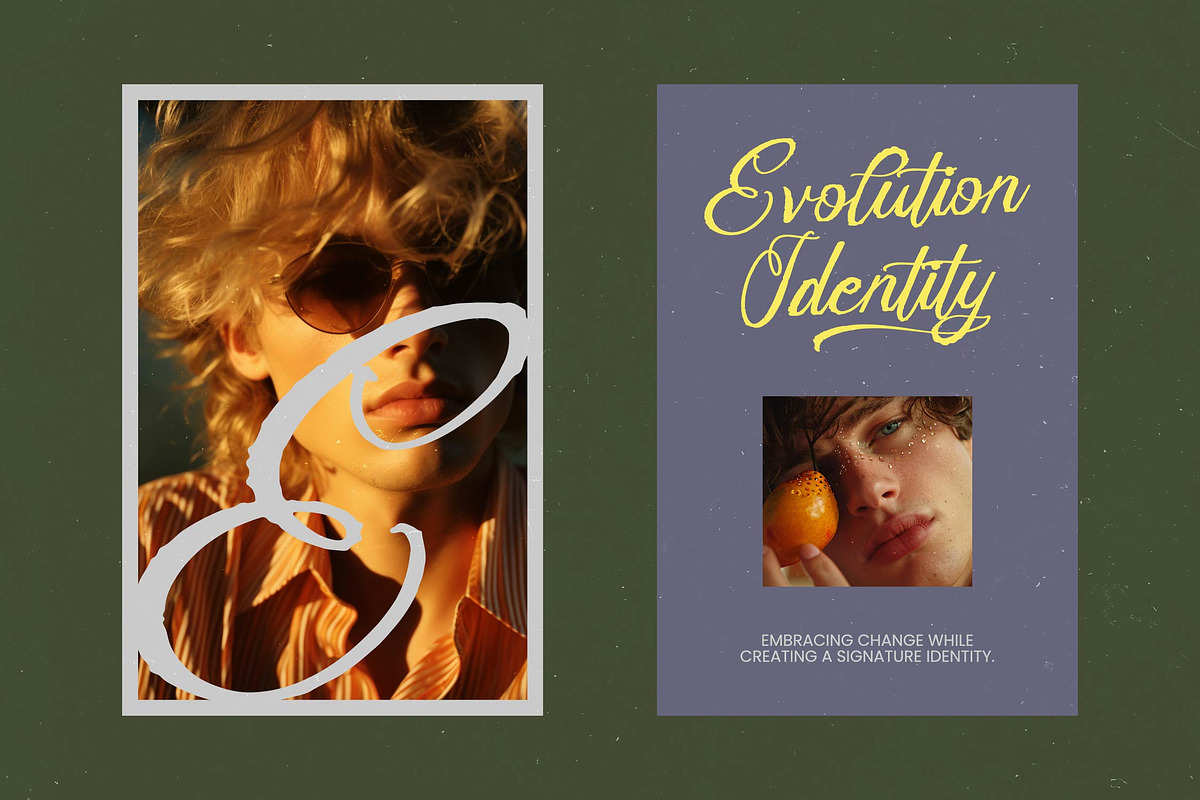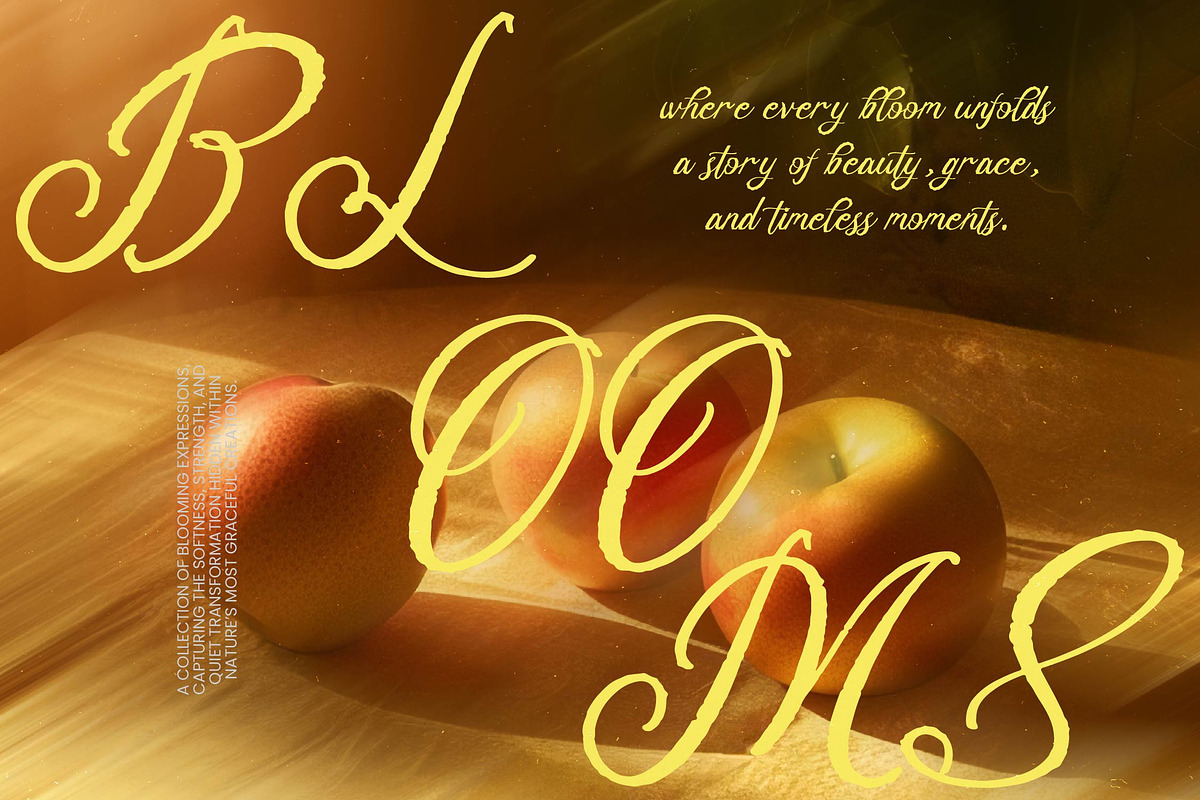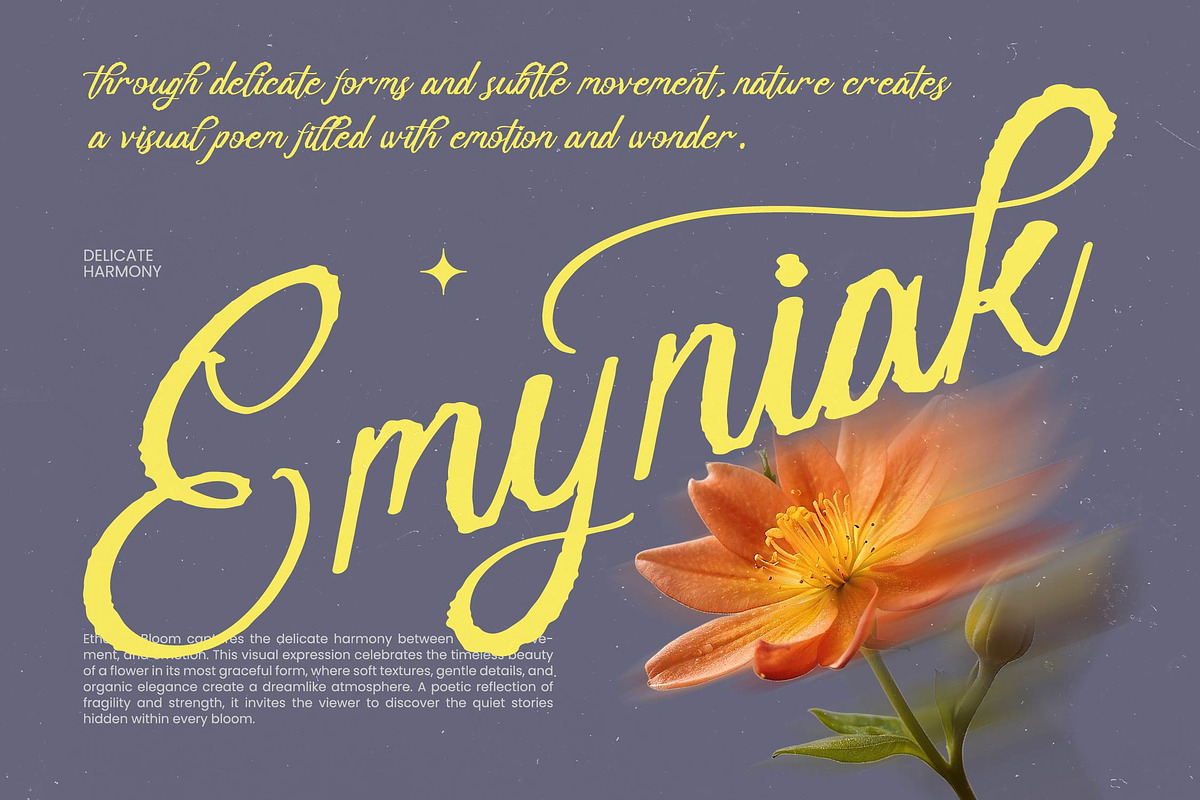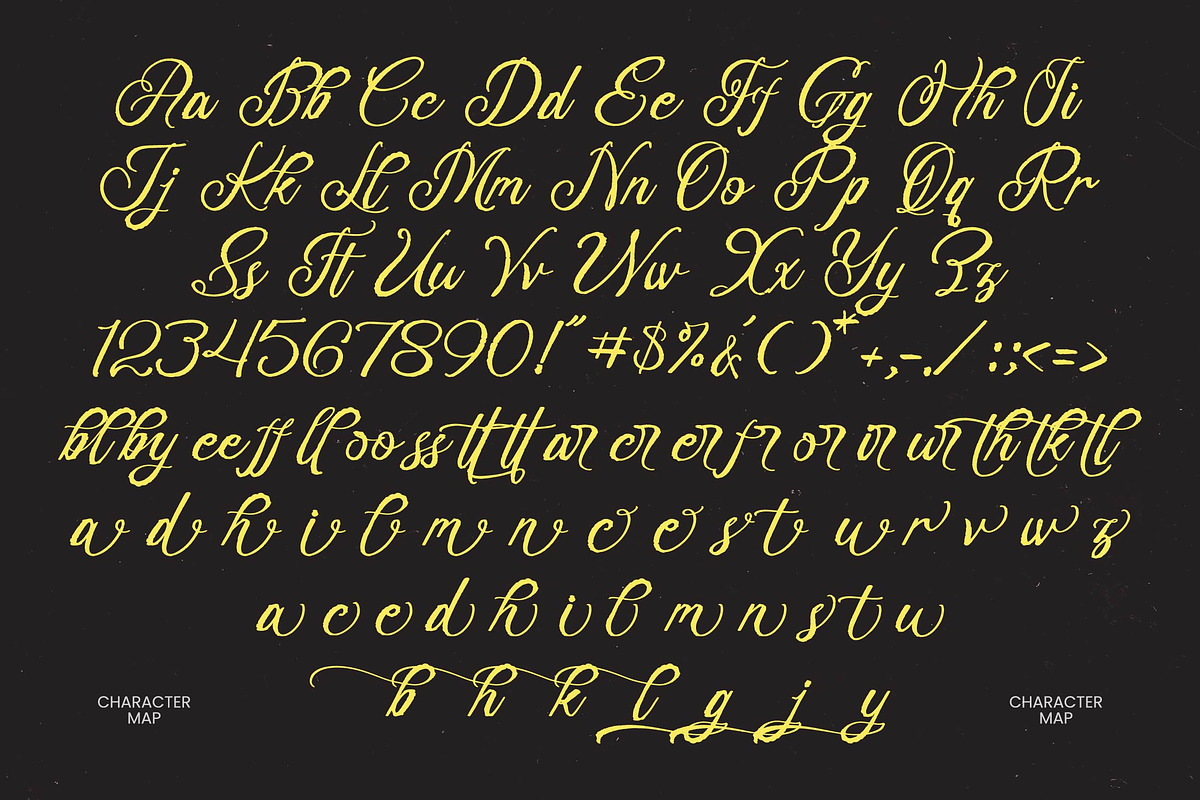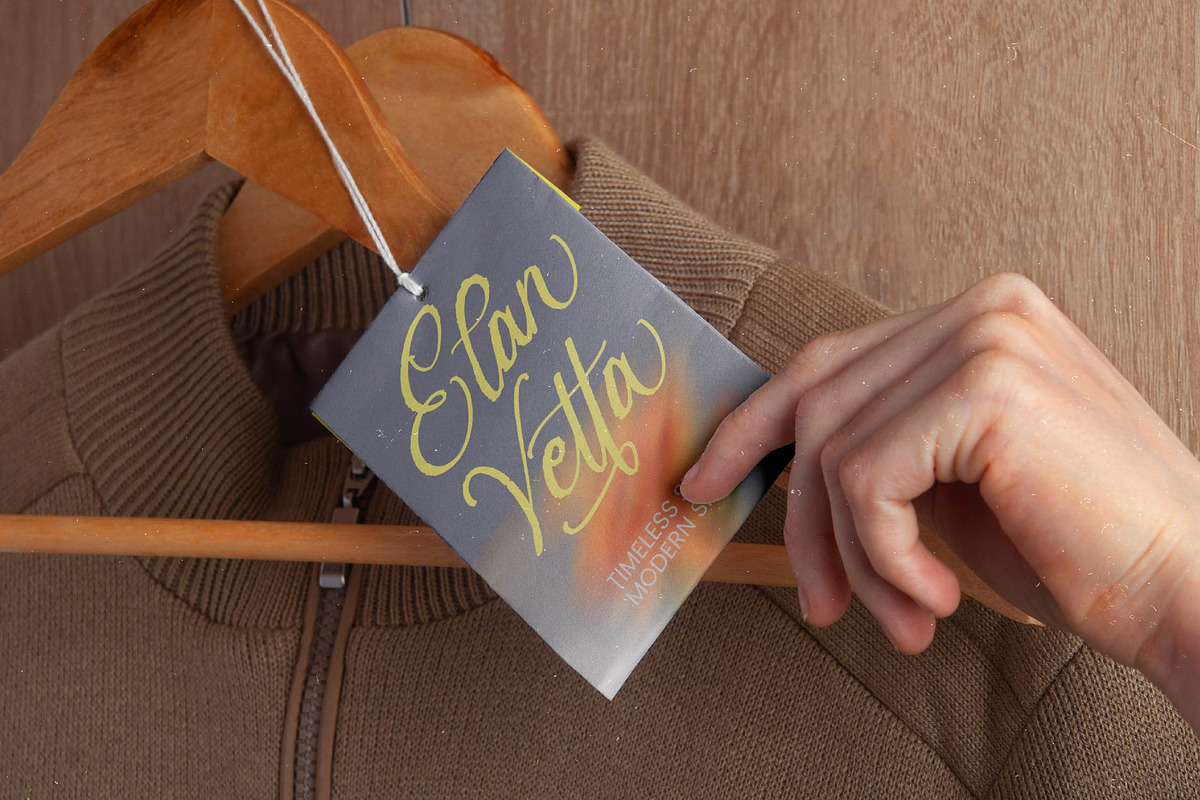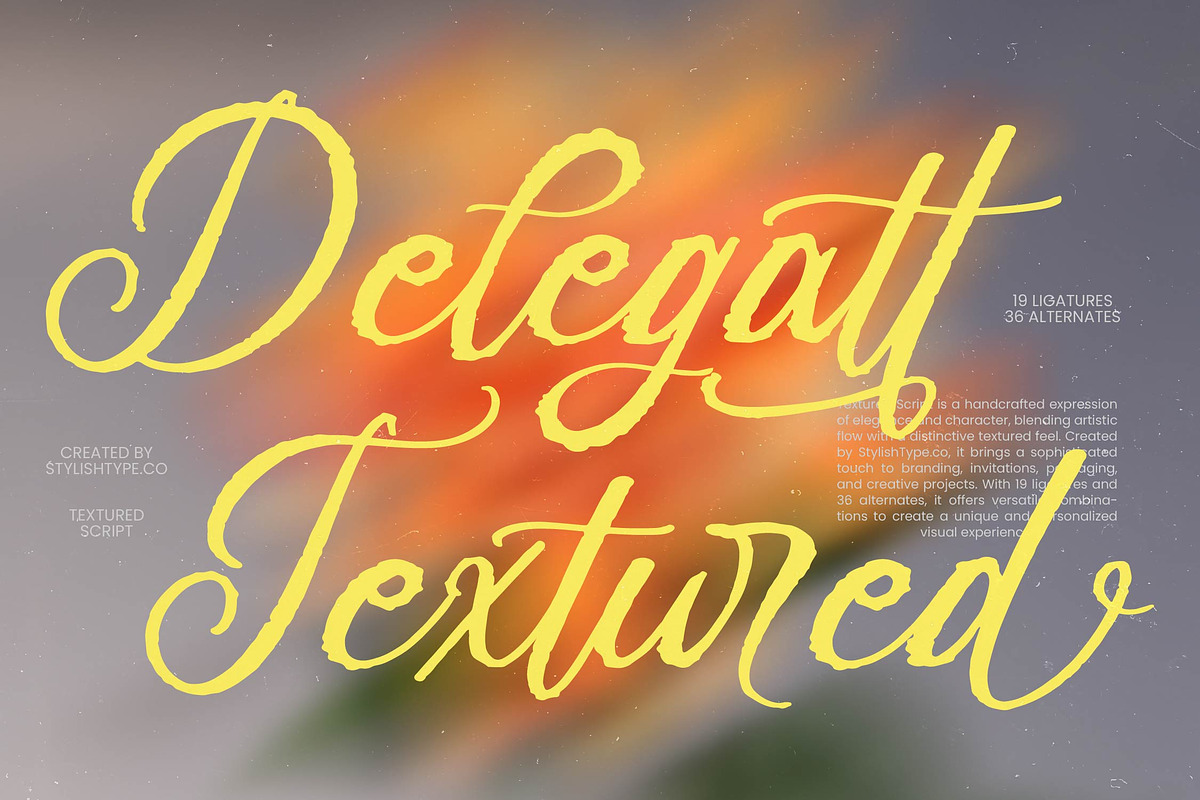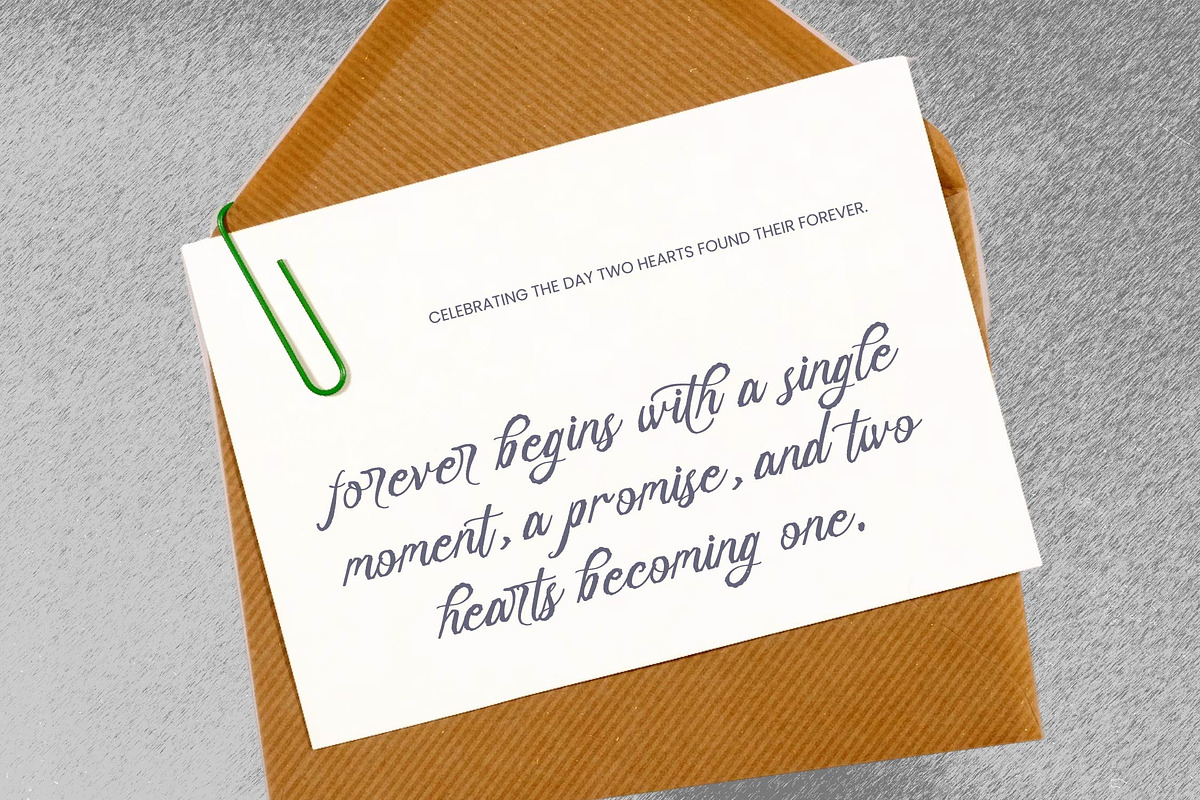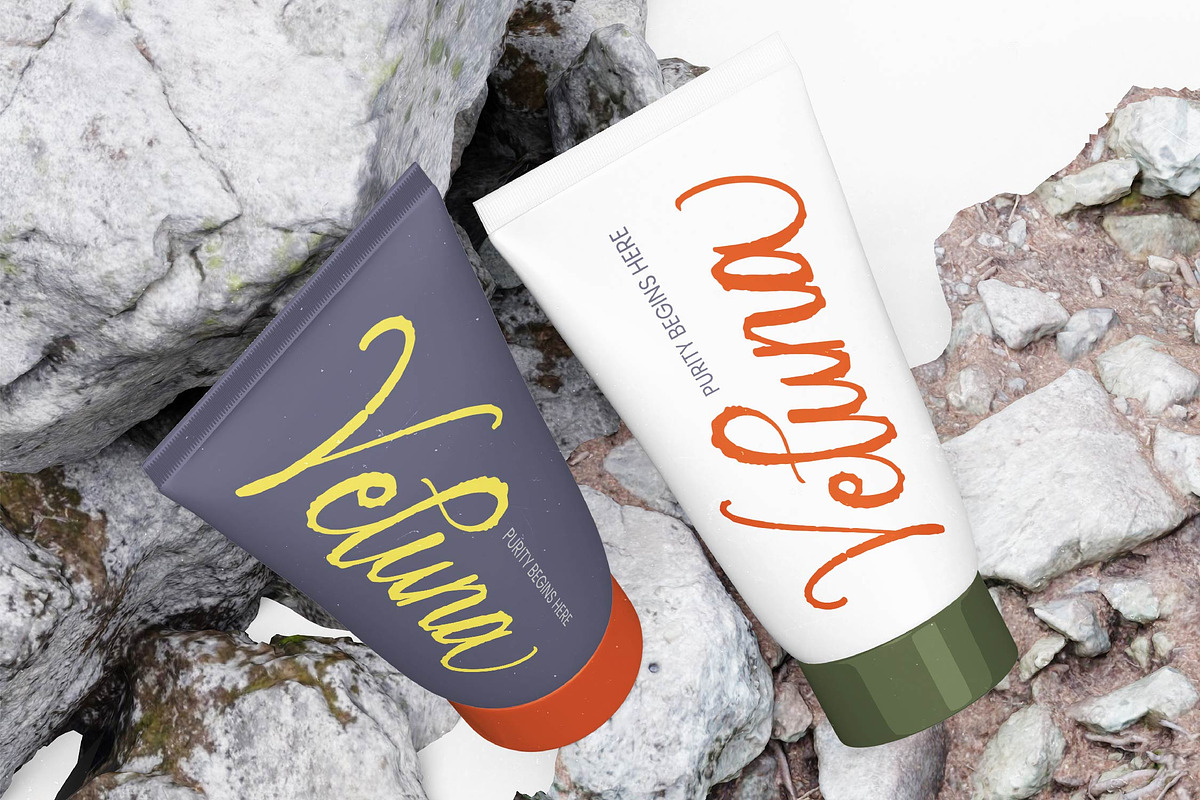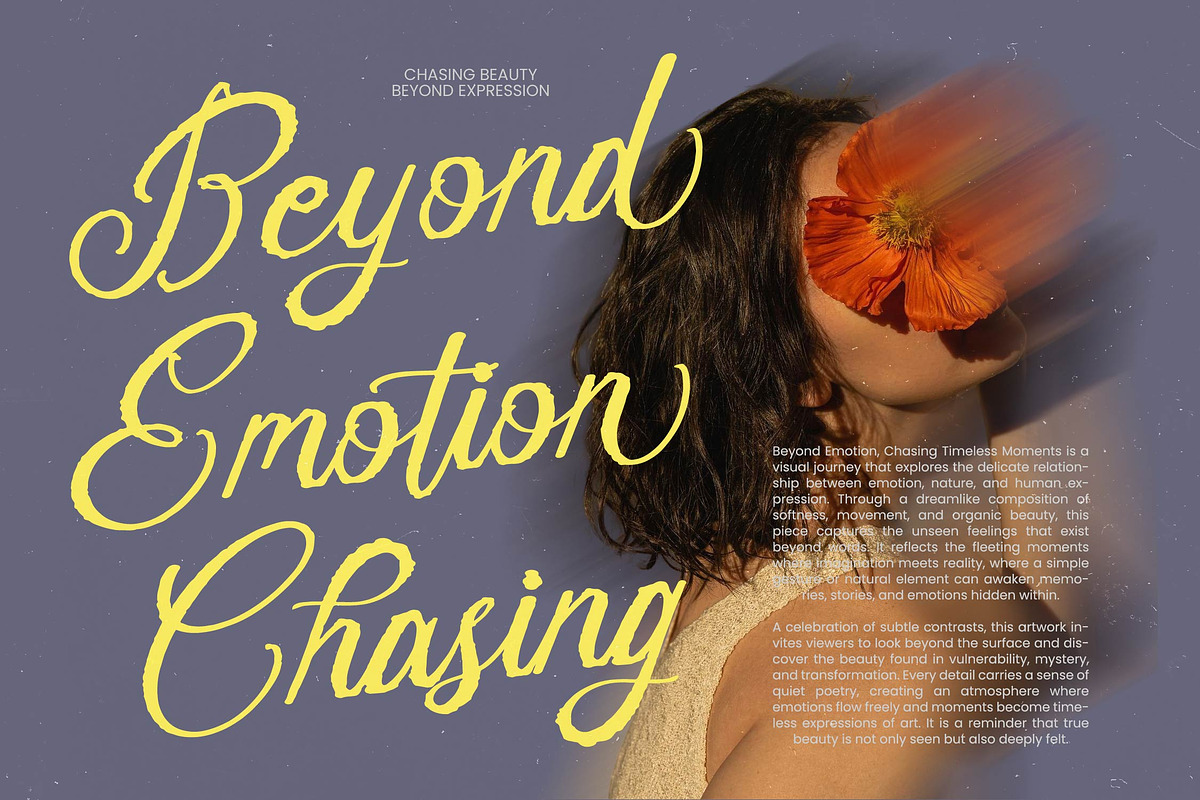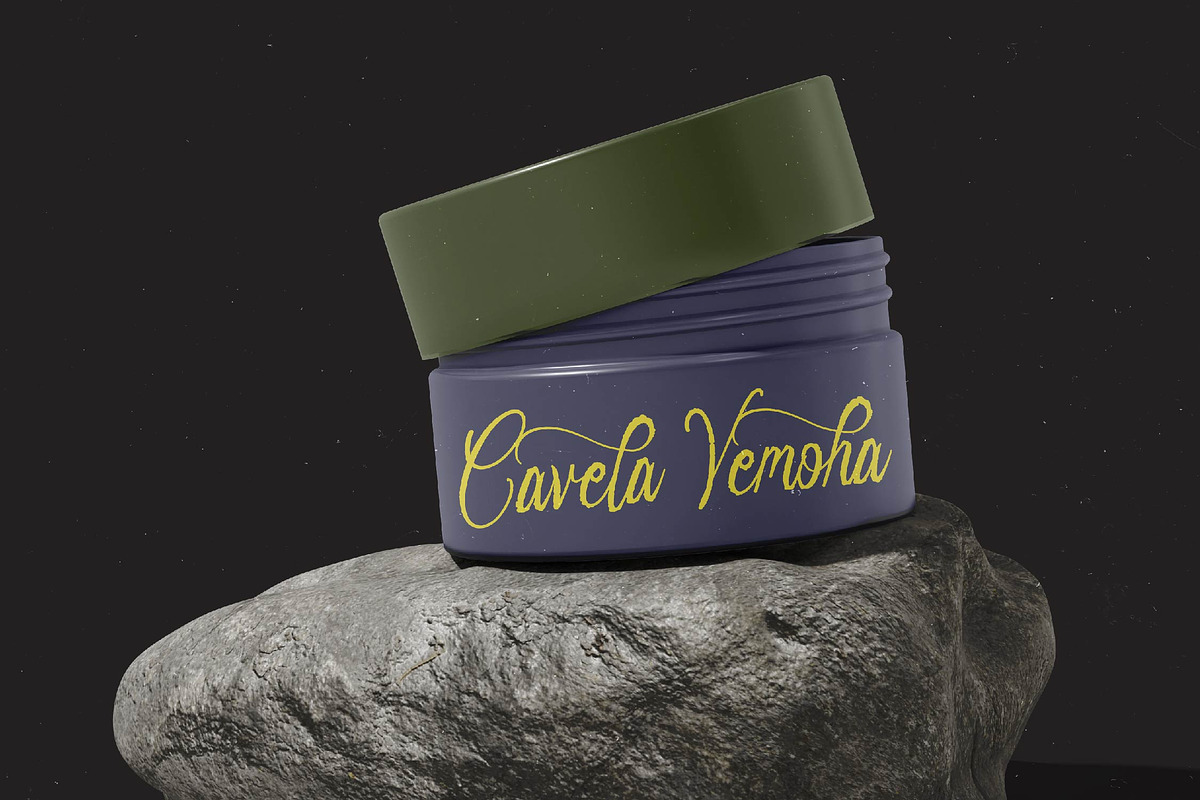
Delegatt Textured Elegant Script
Delegatt Textured - Elegant Textured Script , Experience the soulful artistry of Delegatt Textured, where every stroke whispers a story of handcrafted elegance. This typeface captures the essence of raw beauty, blending sophisticated script forms with a rustic, tactile finish that breathes life into digital design.
Inspired by the organic movement of nature and the timeless charm of vintage calligraphy, Delegatt Textured was born from a desire to bridge the gap between classic refinement and contemporary grit. Its weathered edges evoke the feeling of ink on aged parchment, bringing an authentic, atmospheric presence to any creative canvas.
This font is a powerhouse for modern serif display and luxury typography, offering a unique high-contrast serif feel through its calligraphic weights that command immediate attention. It functions as a premier editorial font designed to deliver an unforgettable branding impact with its distinctive, gritty texture and flowing rhythm.
Perfectly aligned with the rising modern serif trend, this typeface fulfills the growing demand for editorial display fonts that feel human and grounded. It stands as a pinnacle of character-driven typography, catering to designers who seek to break away from sterile digital lines in favor of warmth, depth, and personality.
Elevate your next project with a typeface that excels in logo design and high-end branding suites. It is the ideal choice for ambitious editorial layouts, bespoke packaging concepts, romantic wedding stationery, and high-street fashion lookbooks requiring a touch of artisanal sophistication.
The package is fully loaded with expressive ligatures and creative alternates to give your text a custom-made look every time. With sweeping swashes, full multilingual support, and a comprehensive set of international characters, this font ensures global versatility for all your professional creative endeavors.